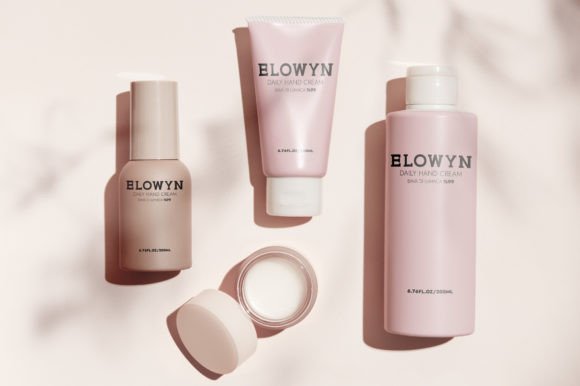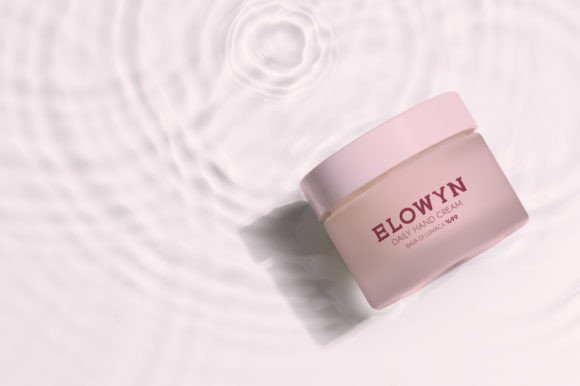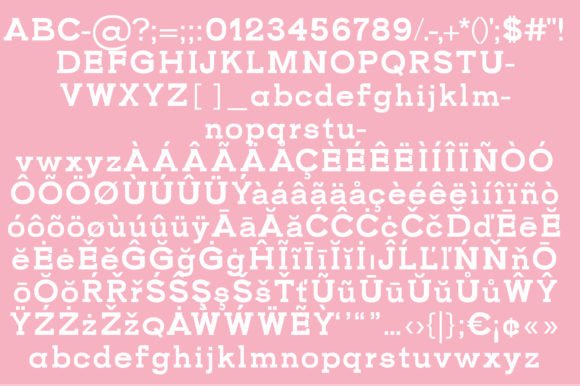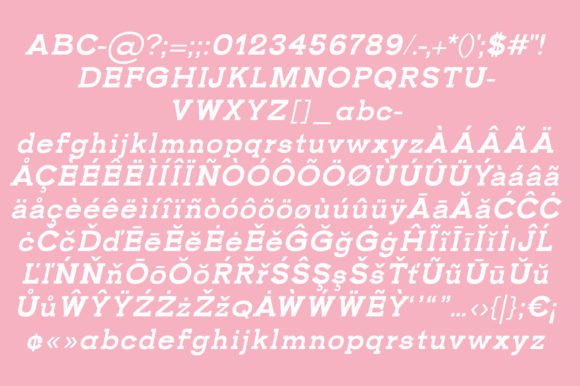
Lucia Font
LUCIA FONT SPECIMEN
Lucia is a thick, elegant and clean slab serif typeface. It is suitable to be used in headings and body texts. It can awesomely be used in packaging design, perfume design, cosmetics design, web design, magazine covers, etc. Add this font to your favorite creative ideas, and notice how it makes them stand out!